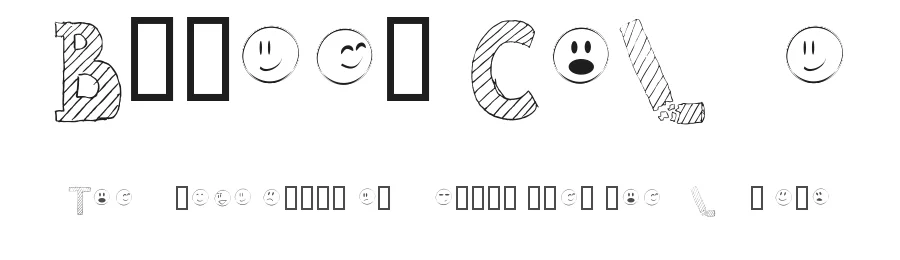
About YoungStar Font
YoungStar is a decorative font. It includes 79 glyphs, a regular weight, TTF (TrueType) format, and 111 languages. YoungStar is free to download; check the license details on this page before commercial use. Decorative fonts like YoungStar work best for logos, posters, packaging, and standout headlines.
YoungStar Font is a decorative font that shines as a display or heading face. Pair it with a clean sans-serif or serif font for body text β the contrast creates a clear hierarchy while the two styles stay balanced and easy to read.
YoungStar Font
YoungStar Font is a decorative typeface, ideal for logos, invitations, branding, and creative projects.